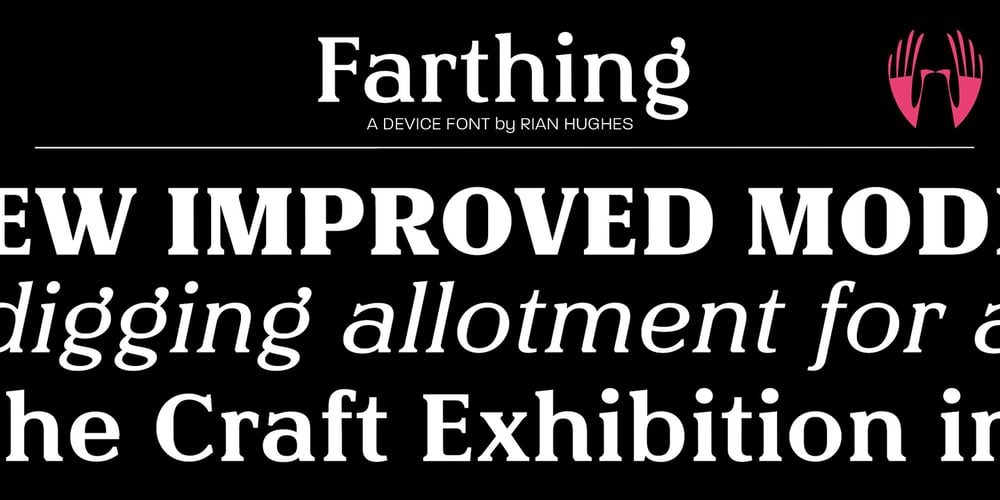
Farthing
Farthing font
Farthing Font Family was designed by Rian Hughes and published by Device. Farthing contains 10 styles and family package options. “Classy eccentricity” — Farthing evokes elegant traditional serif styles, playful but poised. Farthing is a serif face in five weights, with alternate characters and both lining and old style numerals.Suitable for both headline and short paragraphs of text.